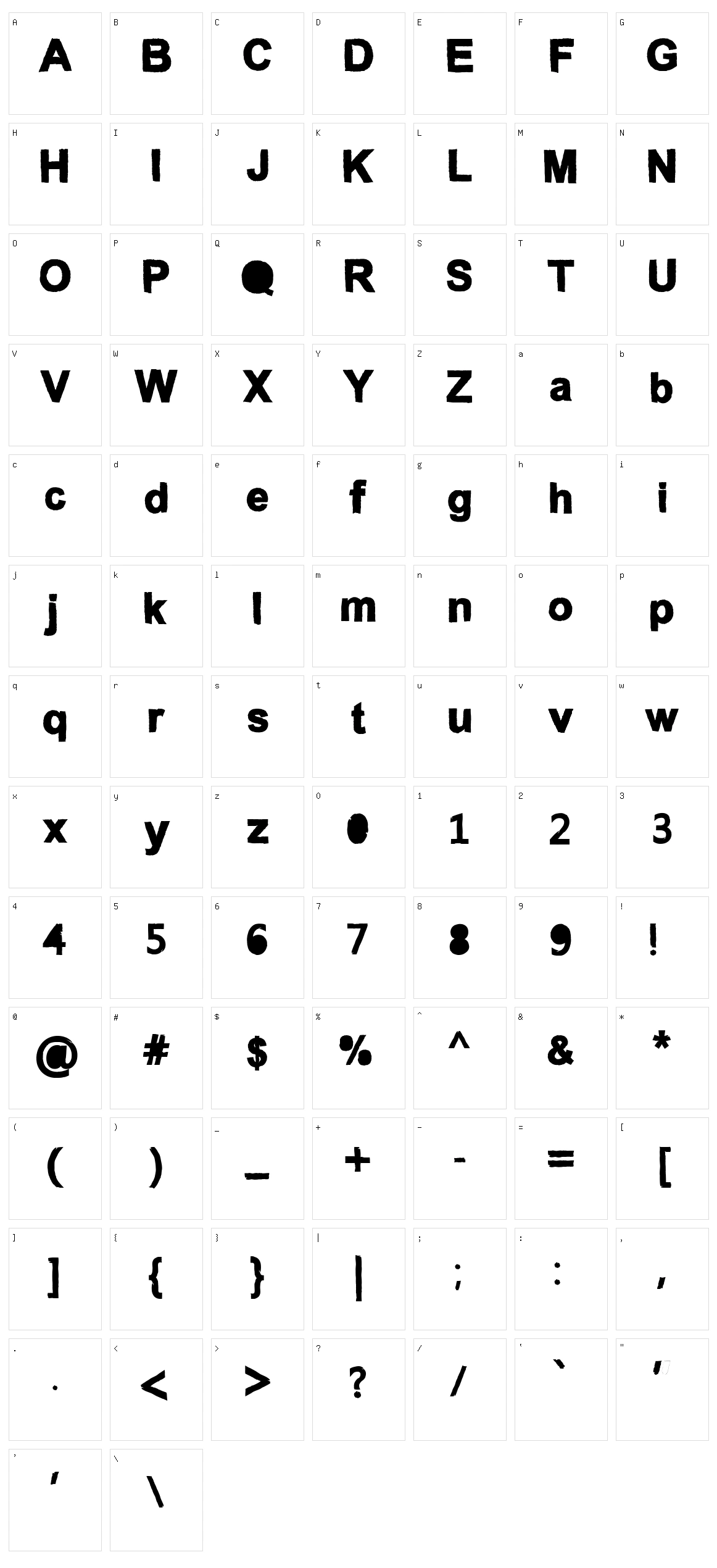
The free font Anconventional is carefully designed by Jeanlouis David Amodio, showcasing a thoughtful balance of creativity and usability and falls under the Eroded font style. When you download the ZIP file, it contains only 74.3 KB of font files, making it lightweight and quick to download. Please review the license details below to understand permitted usage and distribution rights. If license information is not available, we recommend using this font for personal projects only or contacting the author directly for commercial usage permissions.